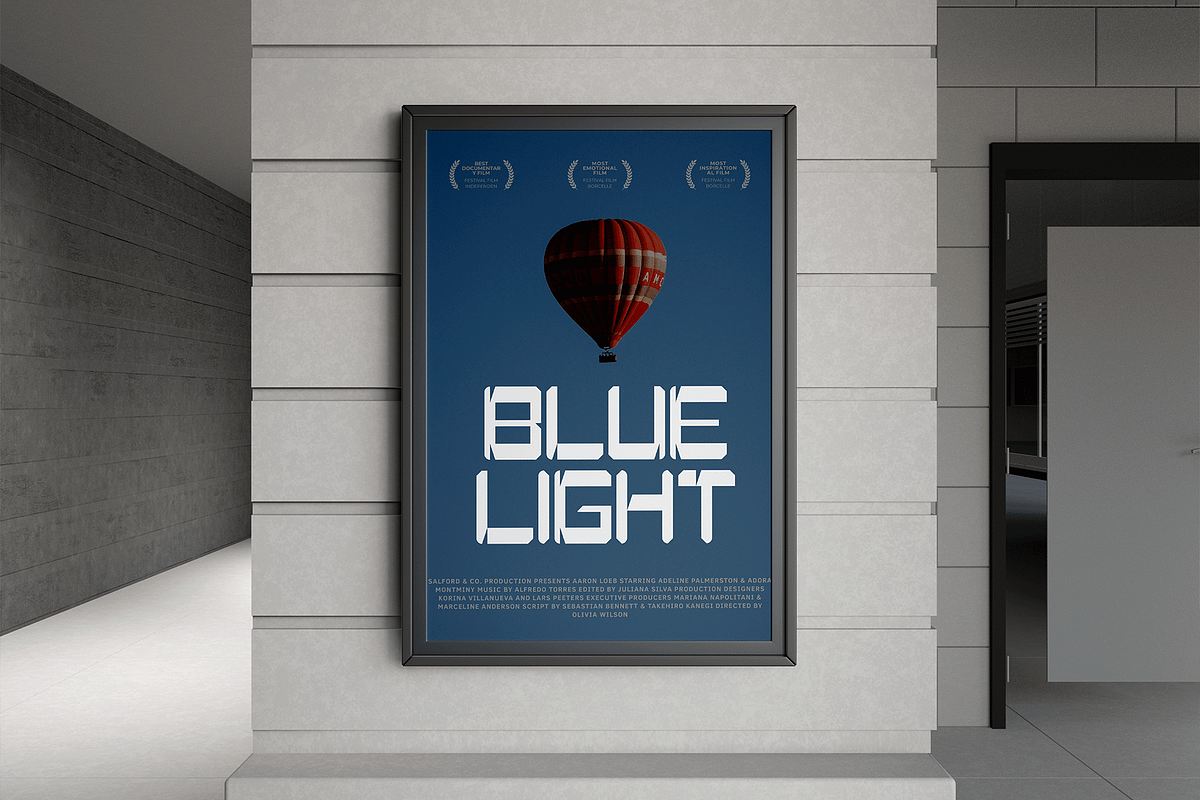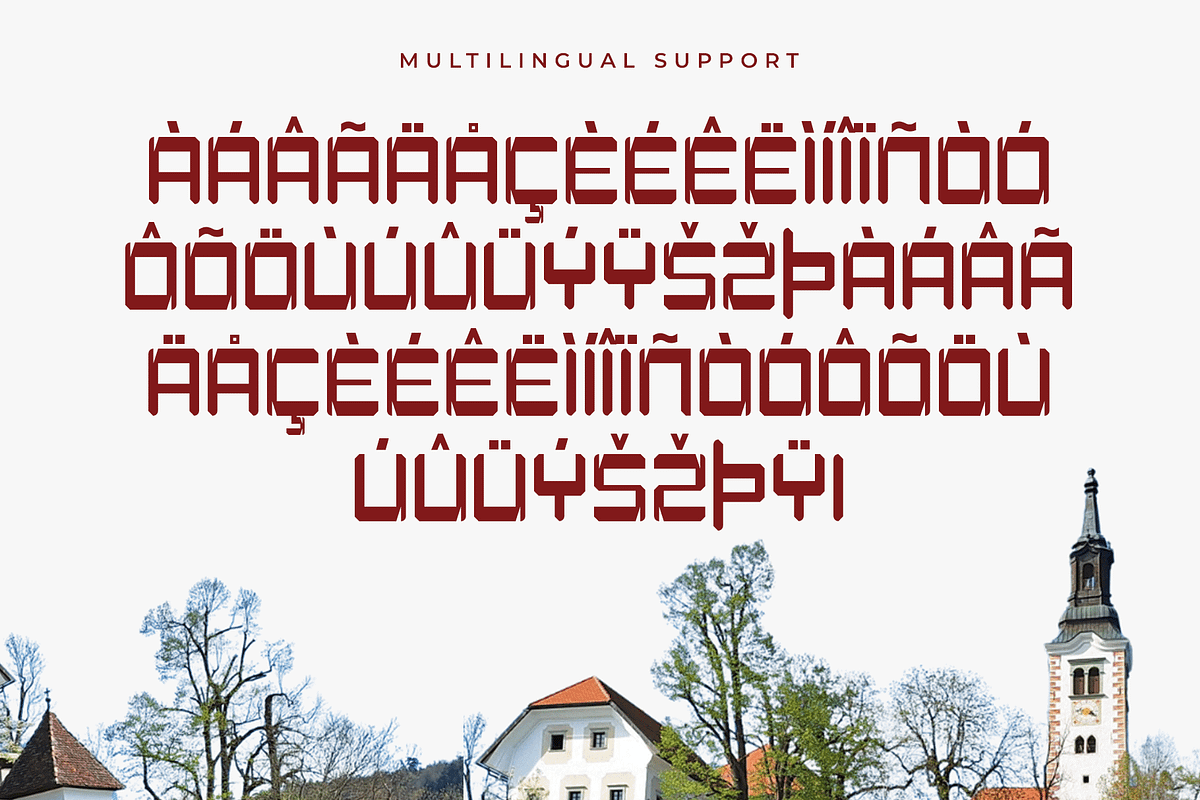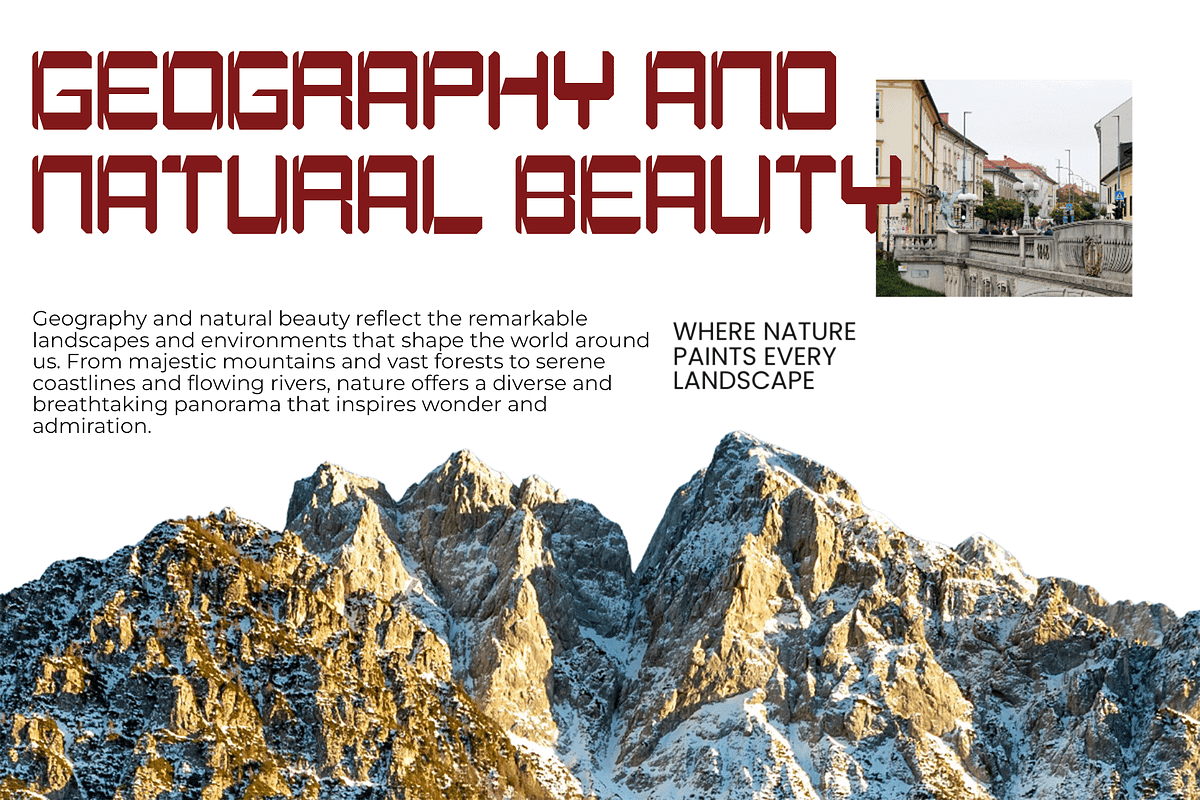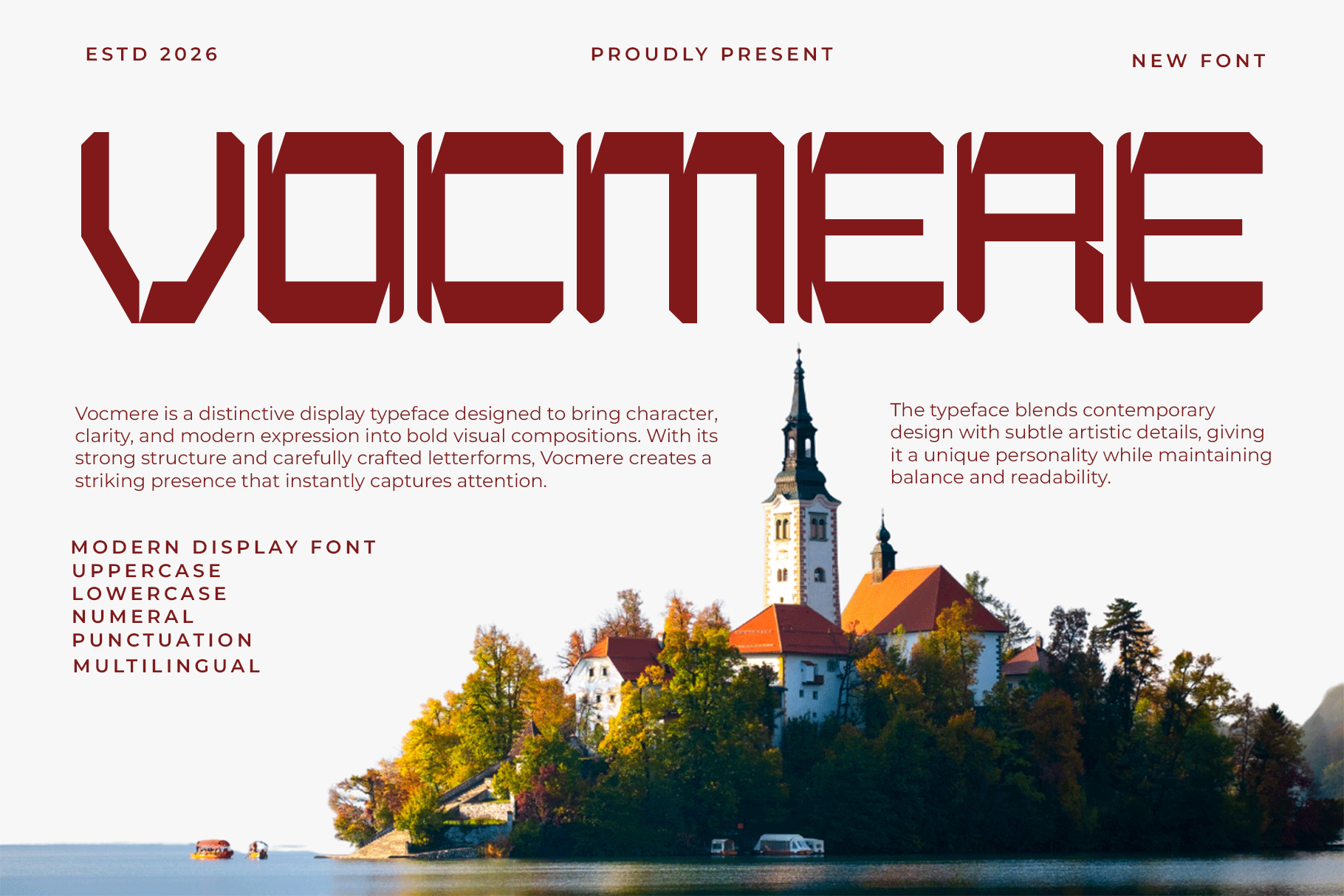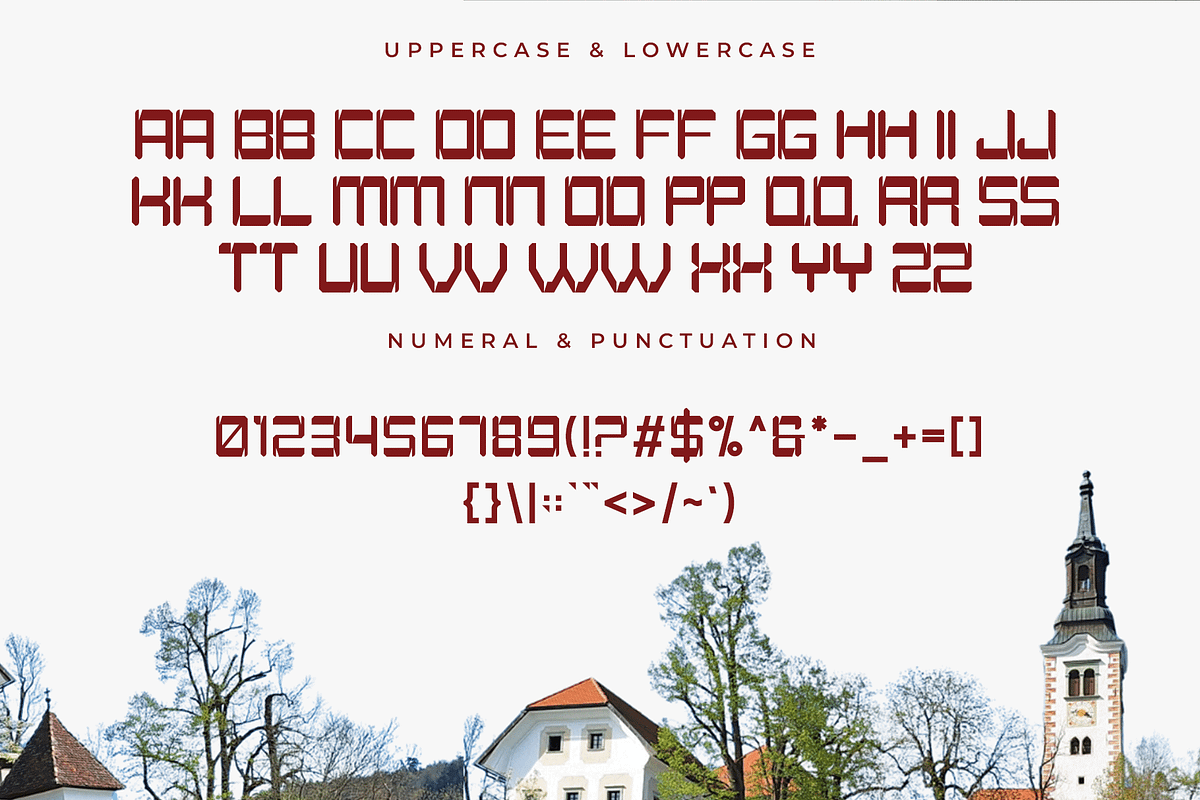
Vocmere – Modern Display Font
Vocmere is a modern display font designed to deliver bold visual impact with a sleek contemporary aesthetic. Featuring strong letterforms, stylish proportions, and distinctive shapes, Vocmere instantly attracts attention and adds personality to your typography.
Perfect for logos, posters, branding, packaging, social media graphics, advertising campaigns, and editorial headlines, Vocmere performs beautifully in large formats where strong design presence is essential. Its modern structure makes it suitable for creative, urban, and lifestyle themed projects.